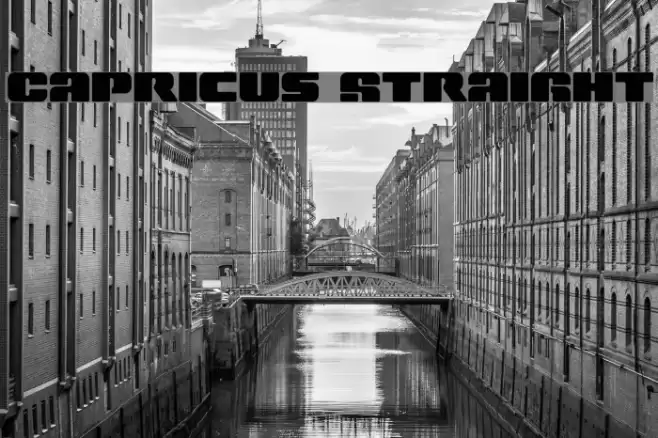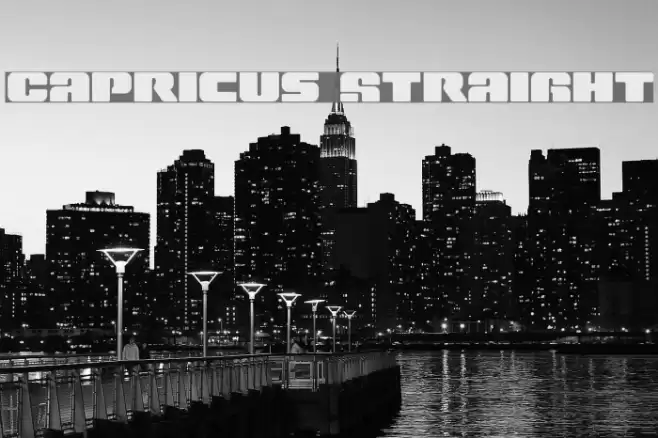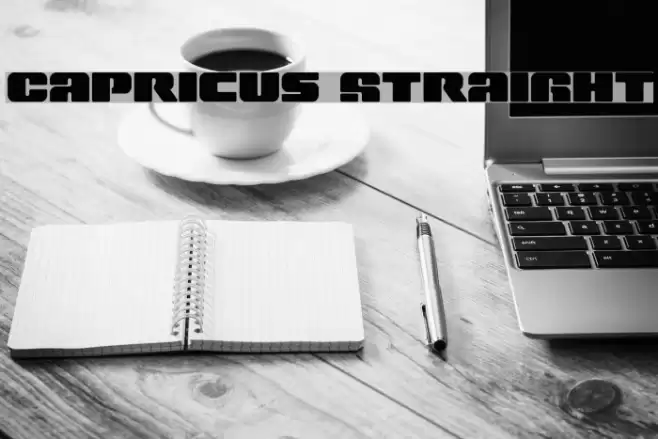
Capricus Straight Font
Capricus Straight Description
This font features a bold and geometric design with a strong presence. The characters are constructed with thick, block-like shapes, giving them a robust and industrial feel. The uniformity in stroke width across all characters contributes to a cohesive and modern appearance. The font's design is highly stylized, with unique cutouts and angles that add a futuristic touch. The uppercase and lowercase letters maintain a consistent style, while the numerals and special characters are equally bold and impactful. This font is ideal for making a statement in any design project.
A bold, geometric font with a modern, industrial style from Uncategorized fonts.
- Proposed Projects: Ideal for branding, posters, headlines, and any project requiring a strong visual impact.